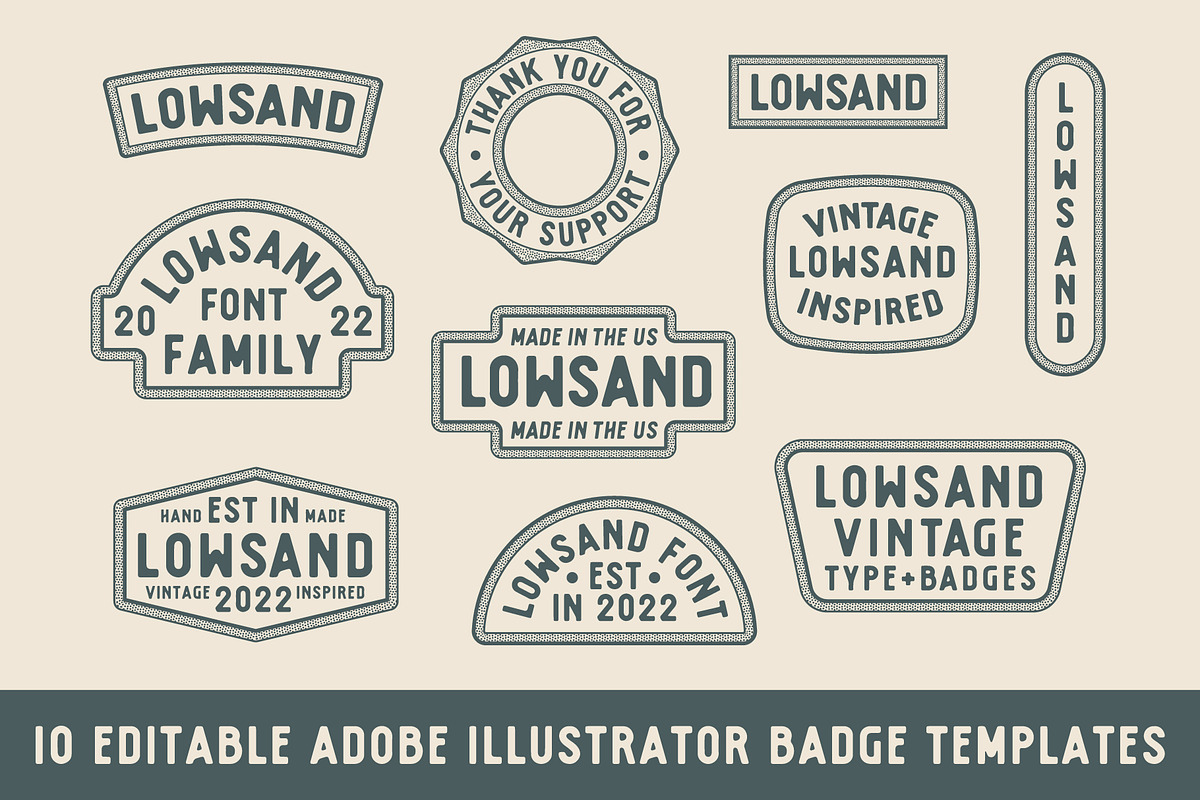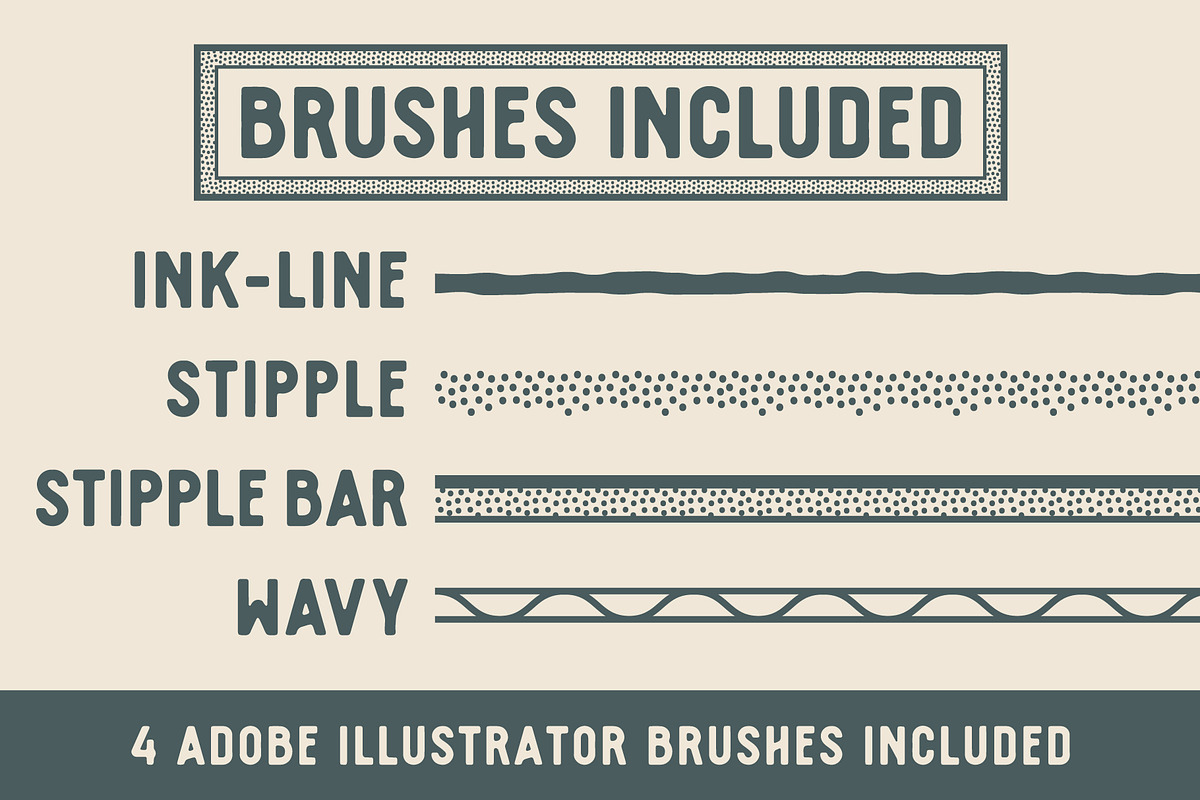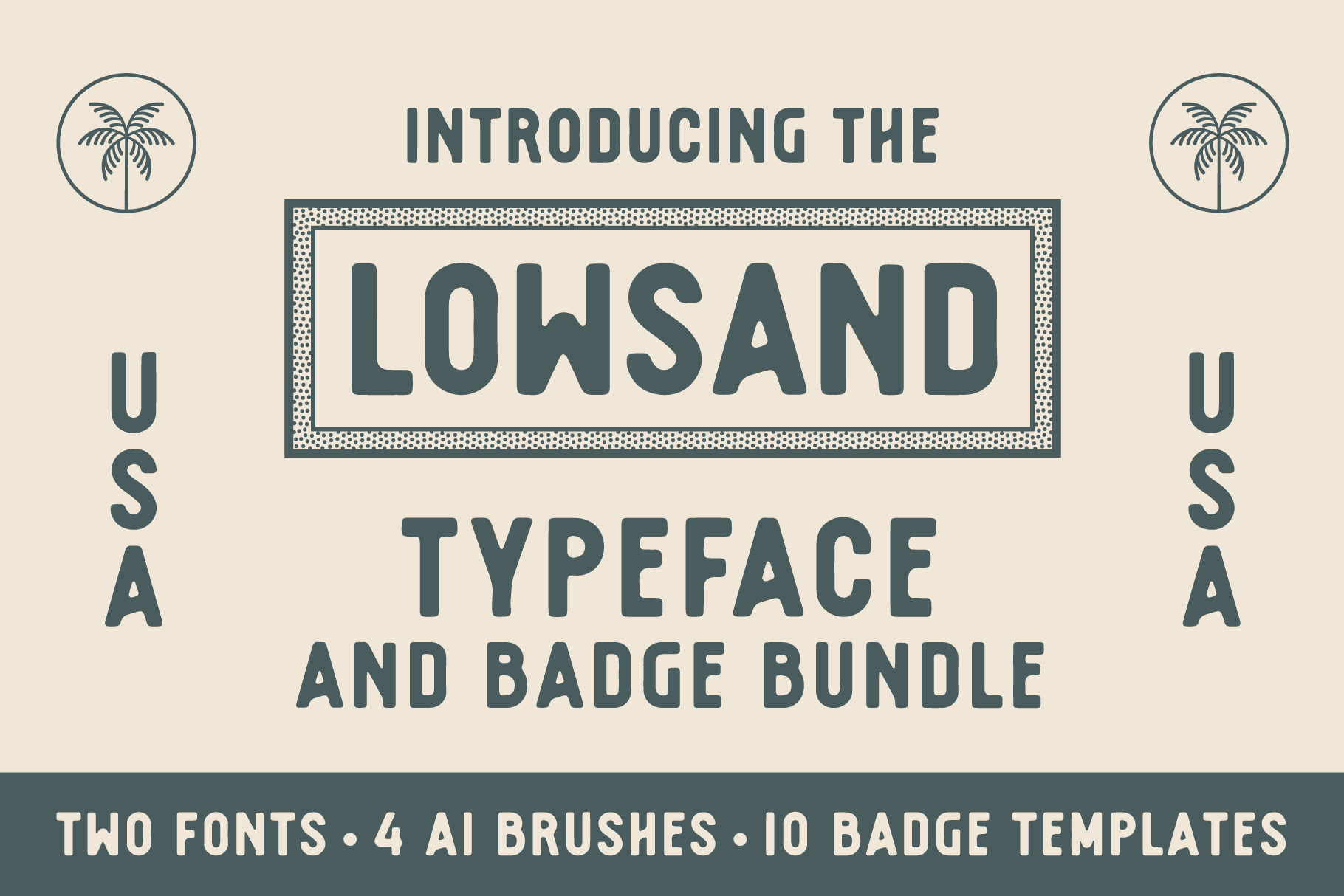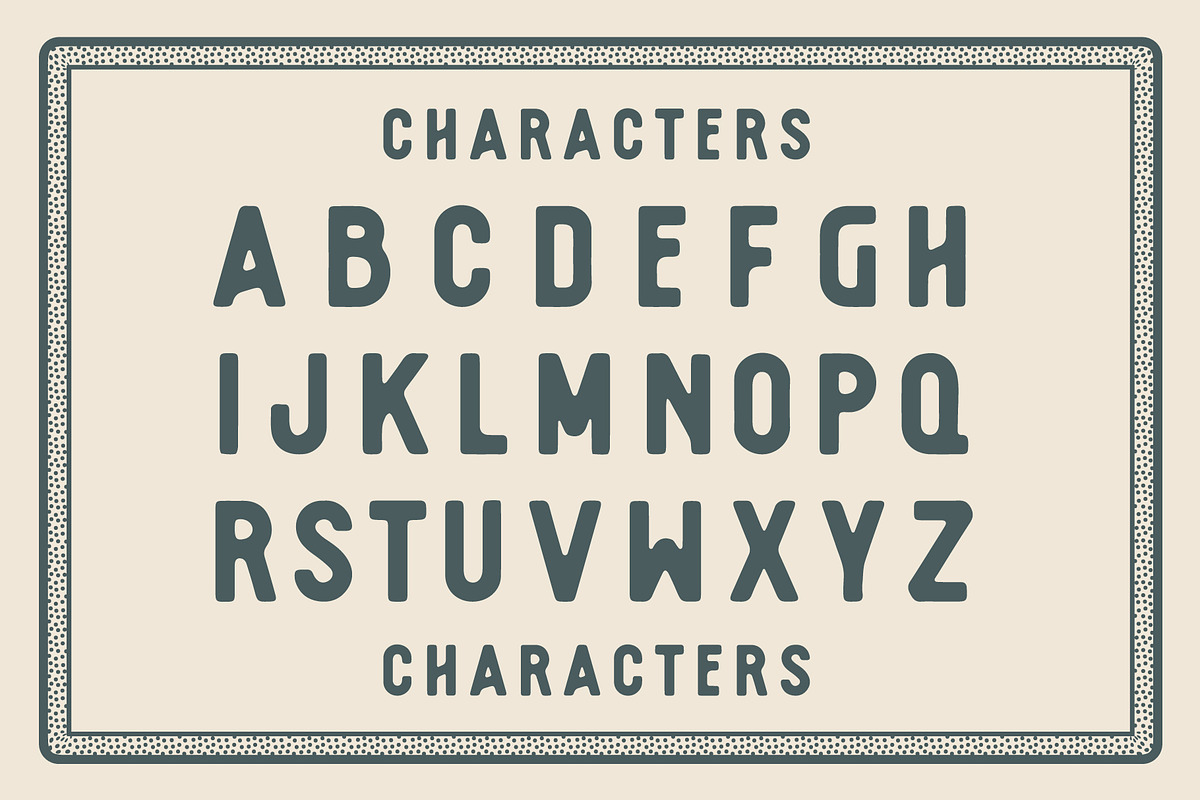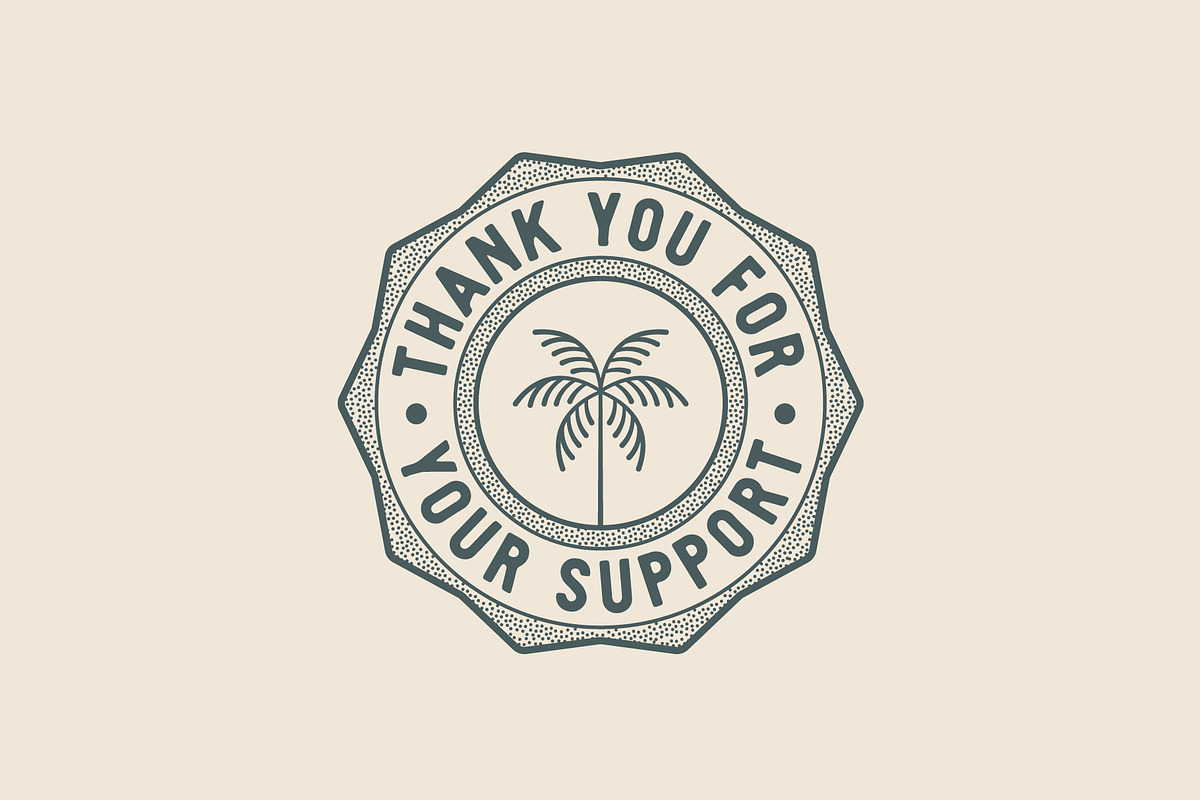
Lowsand Typeface Bundle
The Lowsand typeface is a simple, organic feeling sans serif font that features “inky” characters. This typeface bundle comes with:
- 2 Lowsand Type Styles (Lowsand Regular & Lowsand Italic)
- 10 Adobe Illustrator badge templates
- 4 Adobe Illustrator brushes